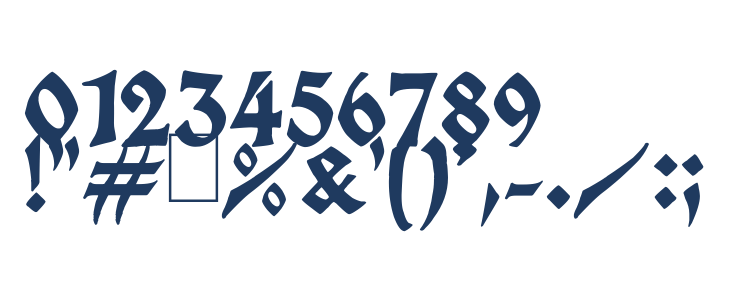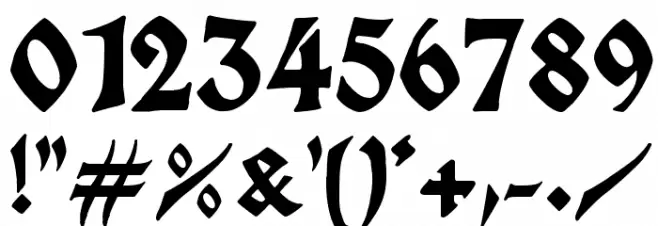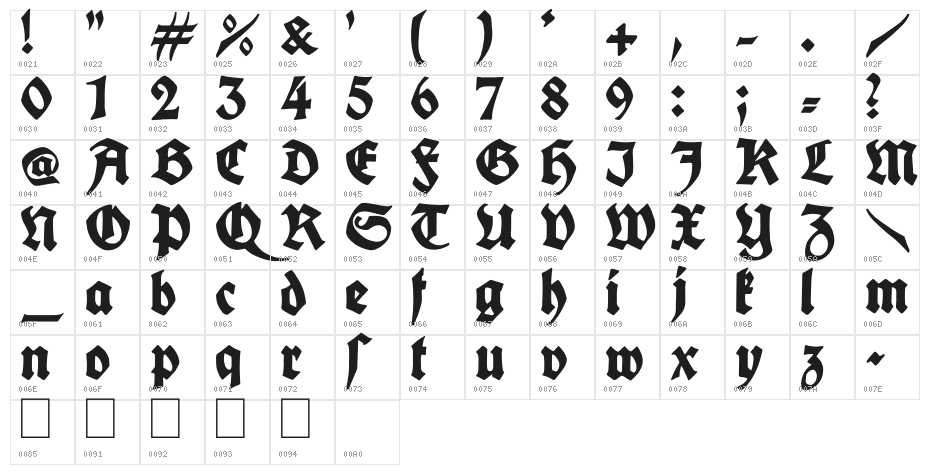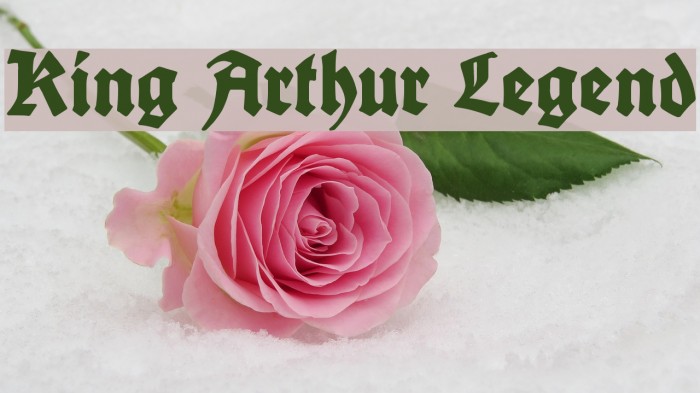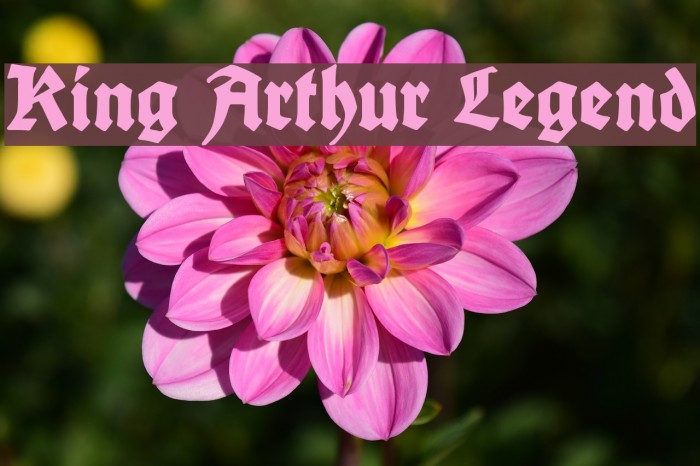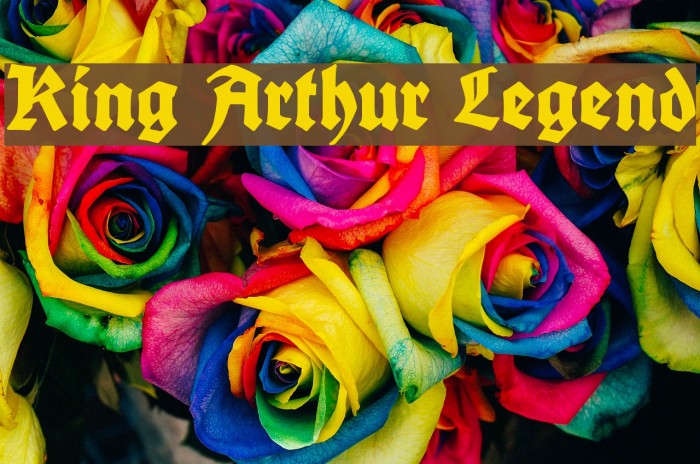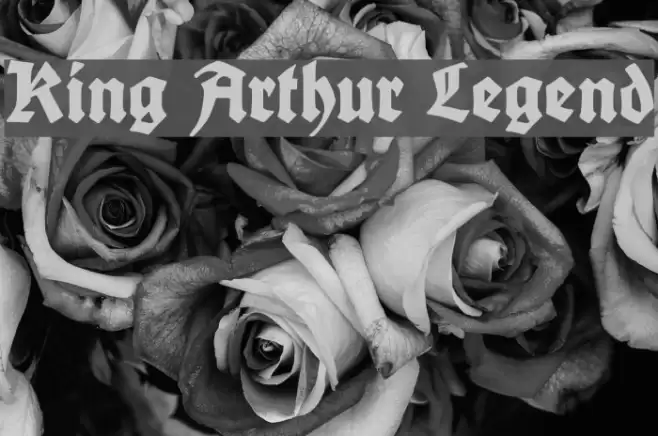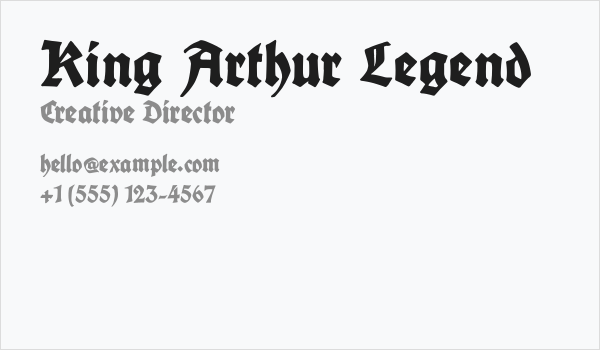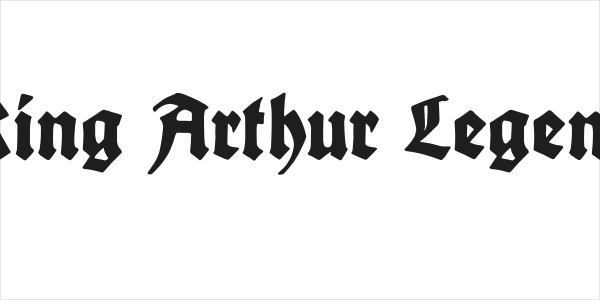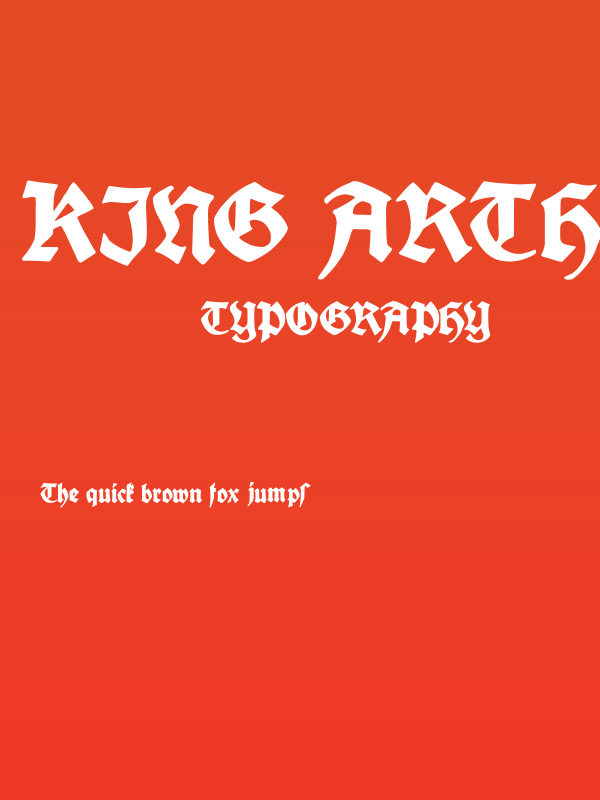
King Arthur Legend Font
King Arthur Legend Description
This font exudes a medieval and gothic aesthetic, characterized by its sharp, angular strokes and intricate detailing. The uppercase letters are bold and commanding, with a distinct old-world charm that is reminiscent of ancient manuscripts. The lowercase letters maintain the same stylistic elements, offering a cohesive look across the alphabet. Numbers and special characters are equally ornate, adding to the font's overall dramatic and historical feel. This typeface is ideal for projects that require a touch of antiquity and elegance, such as historical novels, fantasy games, or themed events.
| Proposed Projects | Ideal for historical novels, fantasy games, themed events, or any project needing a medieval touch. |